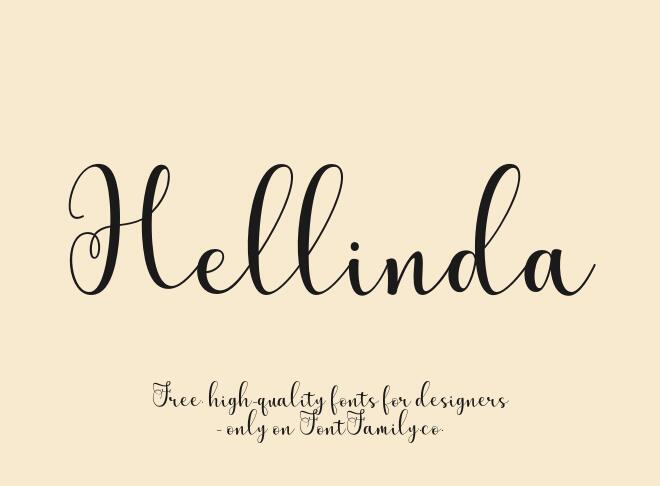
Hellinda Font
Hellinda Font is a modern, elegant script typeface that exudes a sense of sophistication and class. Its flowing, connected letters make it ideal for invitations, logos, and branding where a touch of elegance is required. Hellinda's unique style sets it apart from other script fonts, offering a fresh take on the classic calligraphic style. Its versatility allows it to fit seamlessly into a wide range of design projects, from wedding invitations to business cards, making it a must-have in any designer's toolkit. With its Open Font License, Hellinda Font is free to download and use. It's a great alternative to expensive commercial fonts like Proxima Nova or Gotham, offering similar levels of quality and versatility. Choose Hellinda Font for your next design project and elevate your designs to new heights.